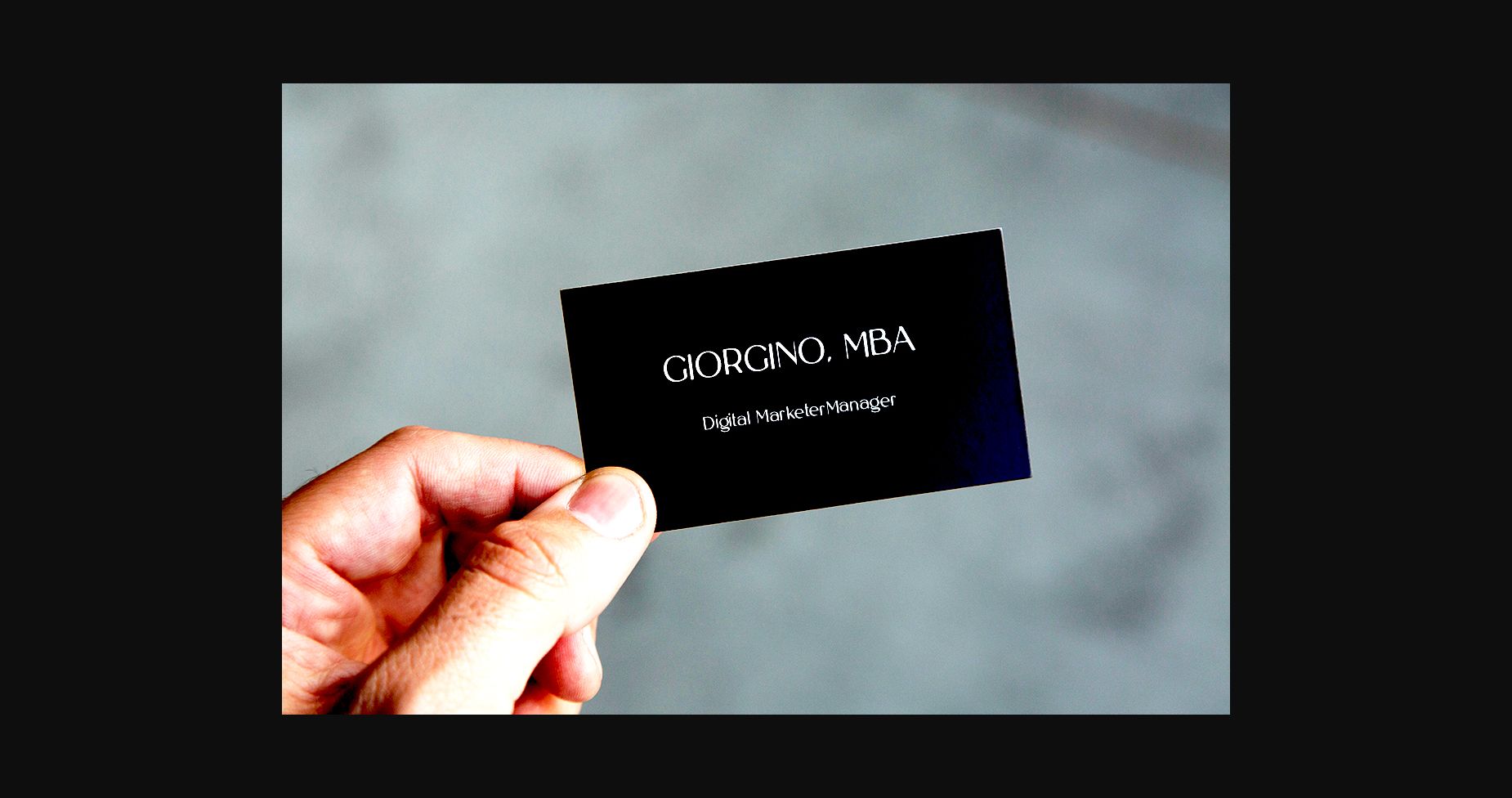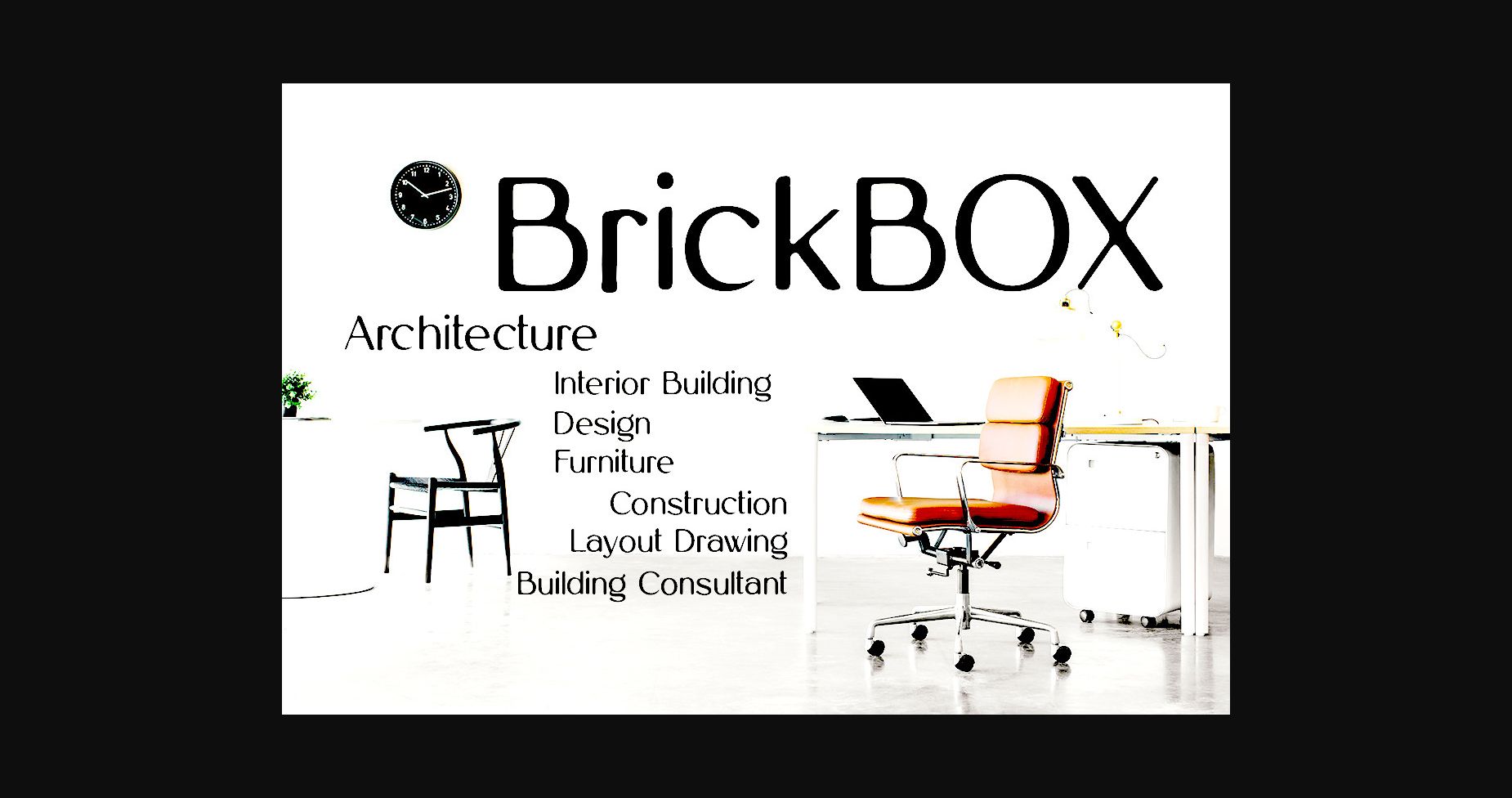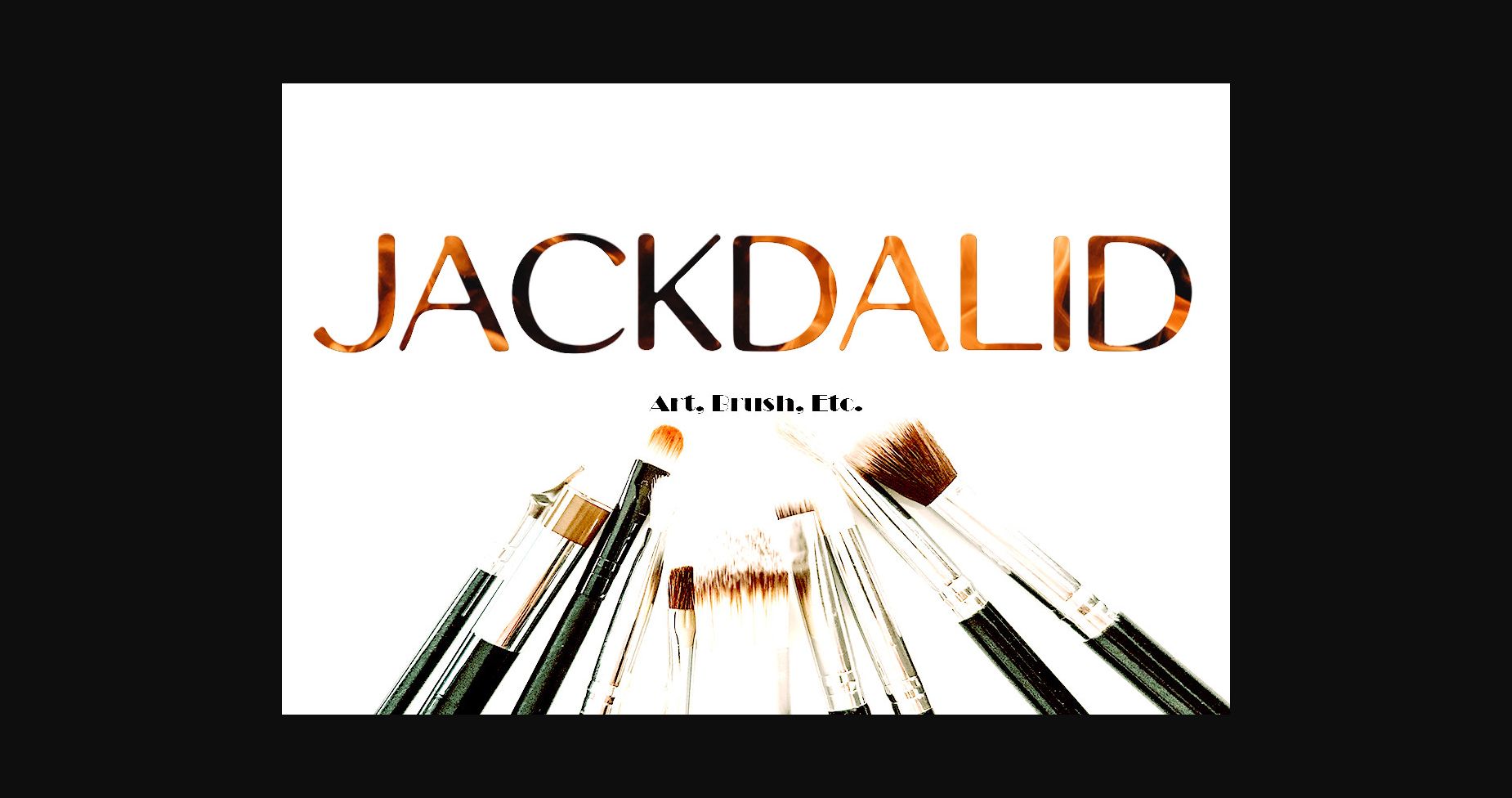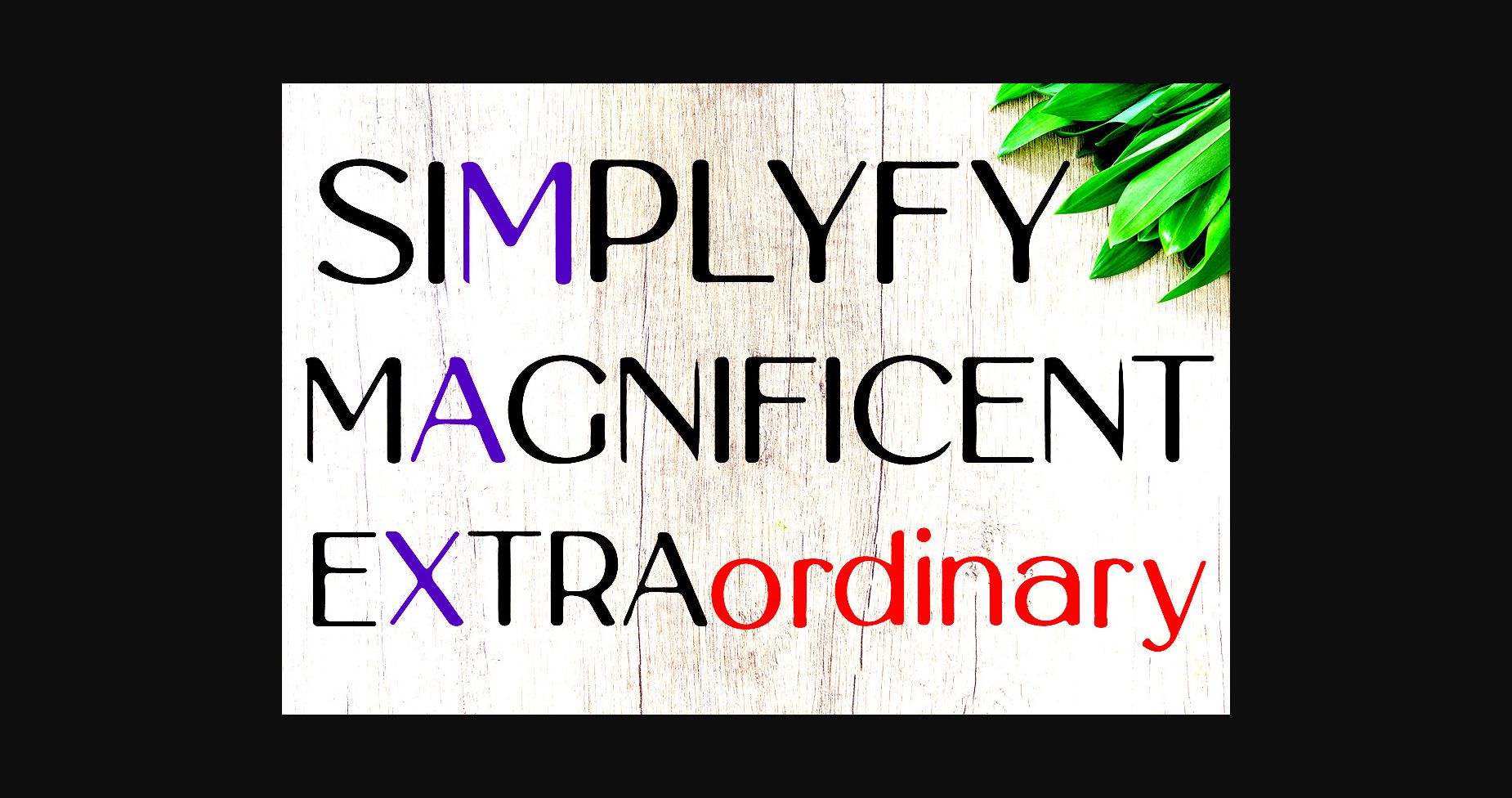
Jackdalid Font
Jackdalid is a modern sans serif font capable of adding a little bang and sophistication to your creative work. It can easily be matched to an incredibly large set of projects, so add it to your creative ideas and notice how it makes them stand out!